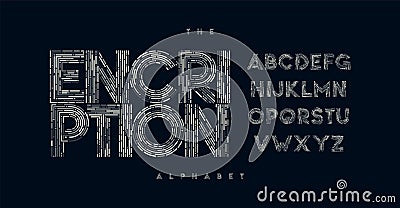
Stripe wires font, tech geometric line alphabet, creative technology font, modern element for branding, secure digital print, encrypted title, contemporary typography. Vector typeset